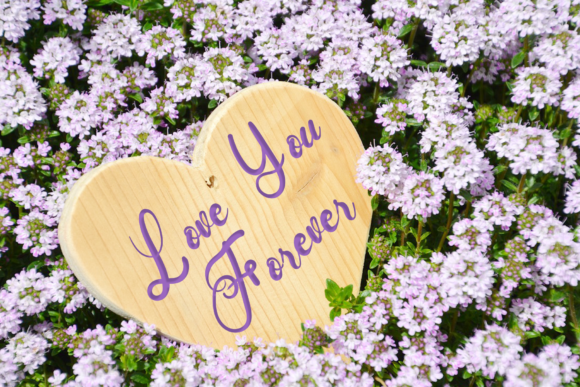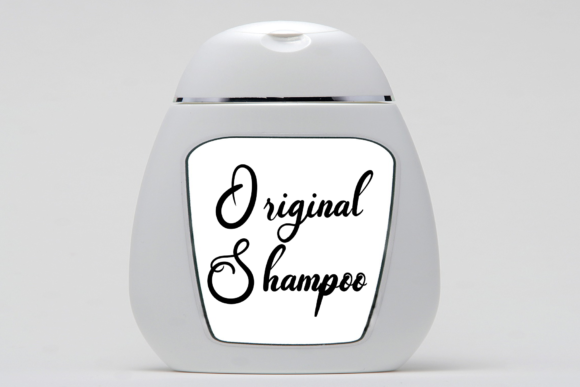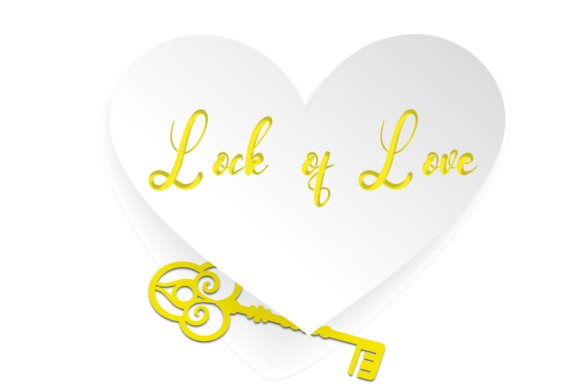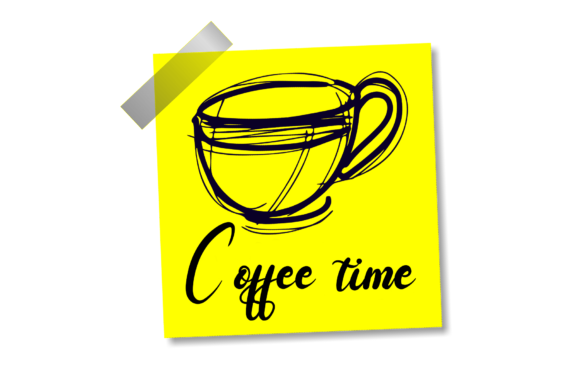
Introduction to Lovely Letters Font
Have you ever stumbled upon a beautiful handwritten font that instantly elevates your creative project to the next level? For designers, finding that perfect font can be a game-changer. It’s the moment when all the pieces come together, and your design shines with a unique personality. For me, that moment came when I discovered the Lovely Letters Font – an incredibly distinct, delicate, and timeless handwritten font that has become a staple in my design arsenal.
With its versatility and charm, the Lovely Letters Font is a valuable resource for designers looking to add a handwritten touch to their work. Whether you’re creating wedding invitations, thank you cards, quotes, or logos, this font is sure to impress. And the best part? It’s available for free download, making it an accessible design resource for creatives of all levels.
Key Features of Lovely Letters Font
- High-quality design resource with a unique, handwritten style, perfect for creative projects
- Unique characteristics include swashes, flourishes, and subtle texture, adding a touch of personality to any design
Honest Review: Lovely Letters Font
I recently stumbled upon the Lovely Letters Font while searching for a design resource to elevate my creative project. I was immediately drawn to its elegant and sophisticated aesthetic, perfect for adding a touch of whimsy to any design.
Here are some things that work well with the Lovely Letters Font:
- ✨ High-quality vector design that can be scaled up or down without losing its crispness.
- ✨ A wide range of letters and characters to choose from, making it versatile for various design applications.
- ⚠️ Limited font sizes, which may not be ideal for designs that require a large font size.
- ⚠️ Not ideal for use in complex layouts or designs with many overlapping elements, due to its delicate nature.
Overall, I’m impressed with the Lovely Letters Font’s design quality and versatility. It’s a great addition to any designer’s toolkit, especially for those working on creative projects that require a touch of elegance. While it may have some limitations, it’s definitely worth a free download and experimenting with its capabilities.
To get the most out of the Lovely Letters Font, experiment with different font sizes, colors, and styles. You can also combine the font with other design elements to create a unique visual effect.
The Lovely Letters Font is perfect for creative projects such as wedding invitations, birthday cards, and social media graphics. It’s also great for designing logos, business cards, and other marketing materials.